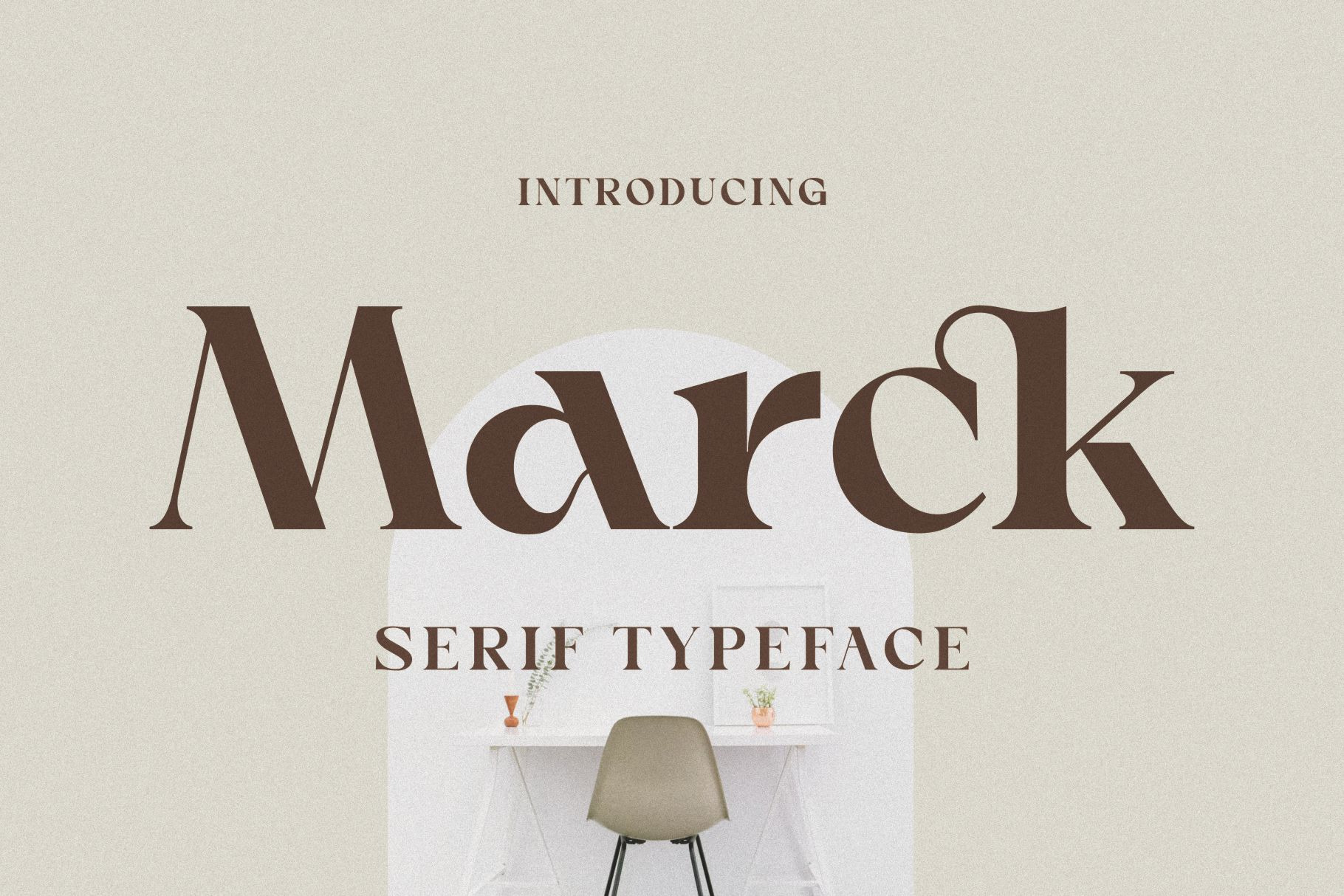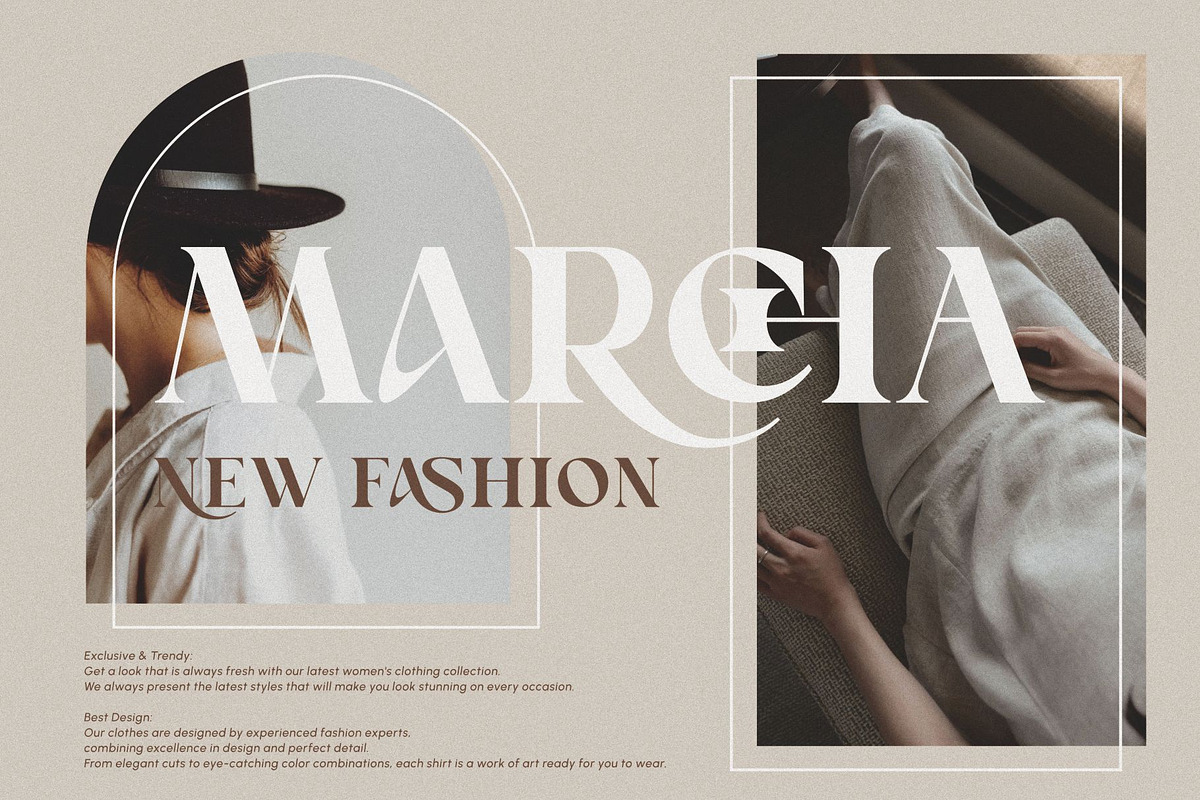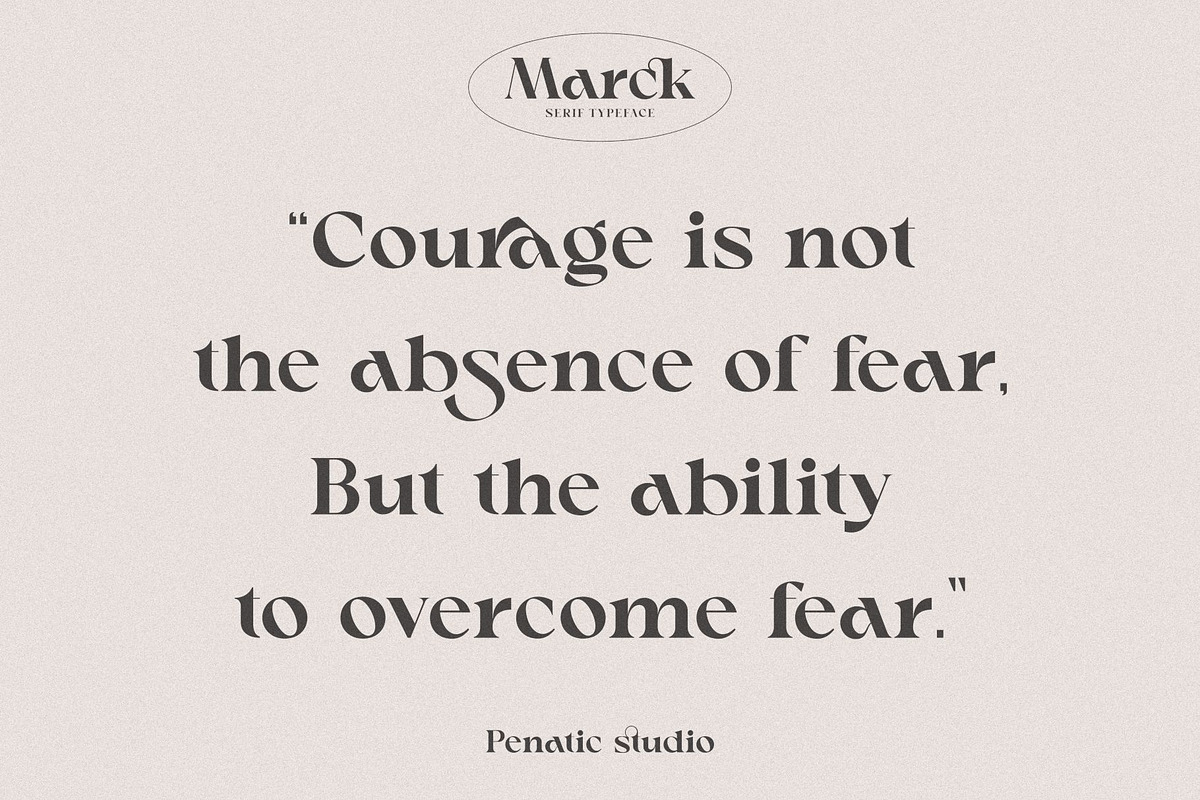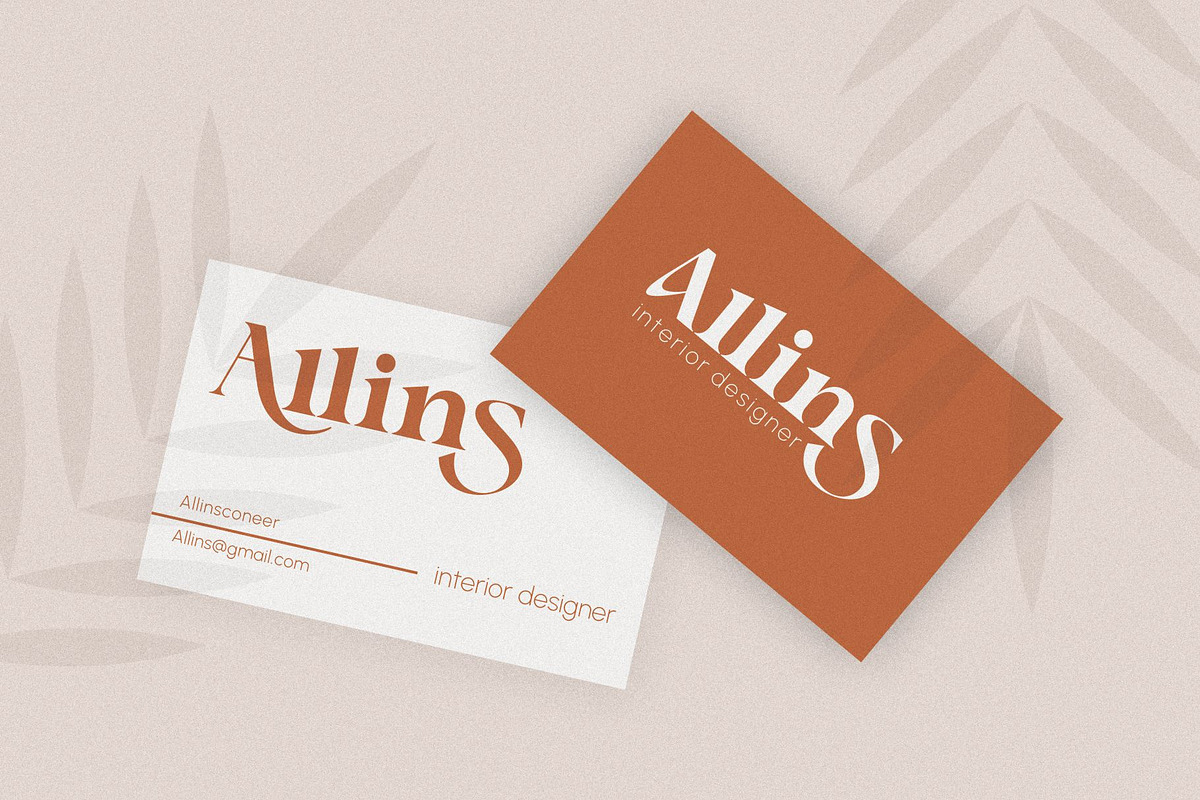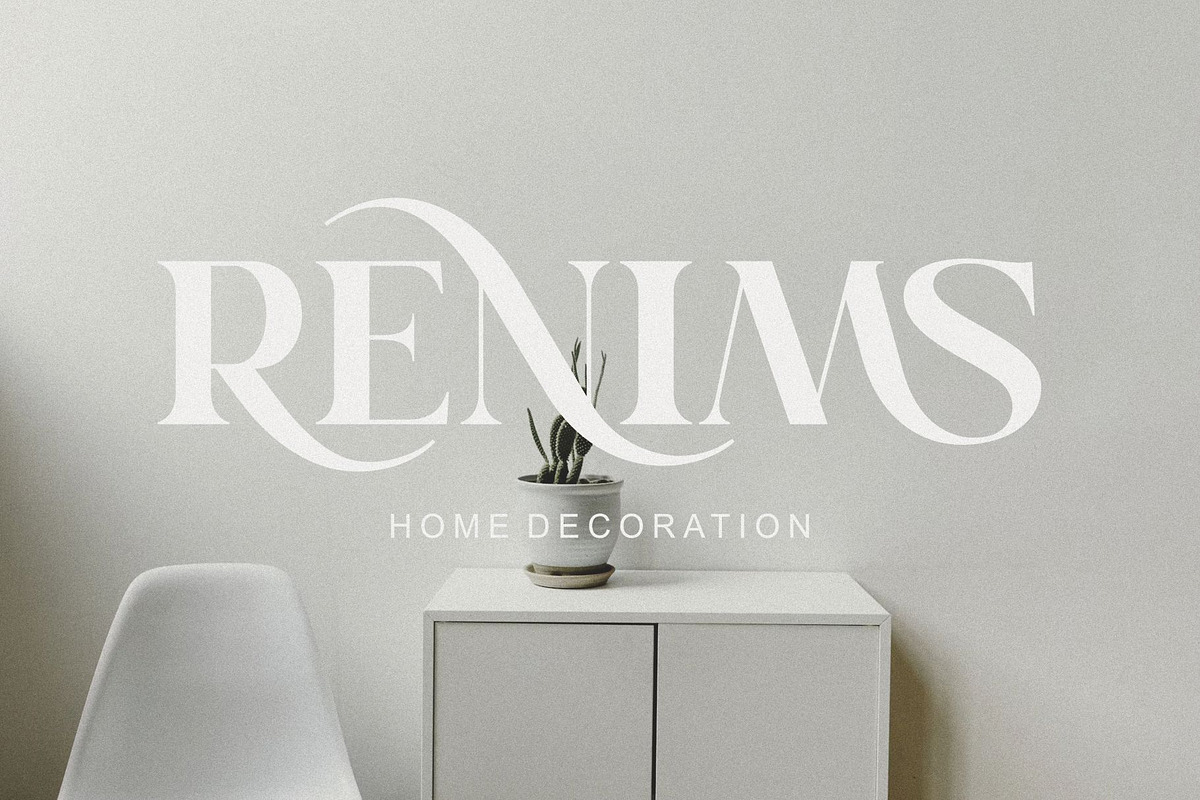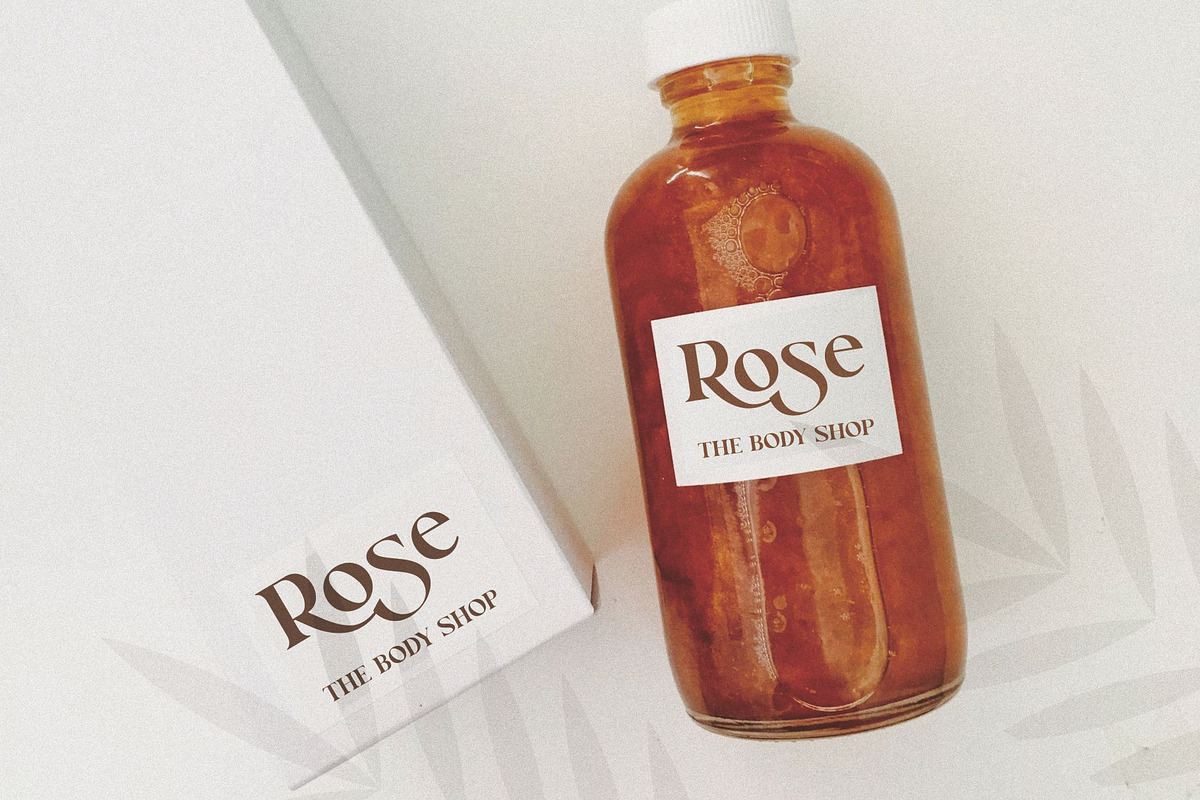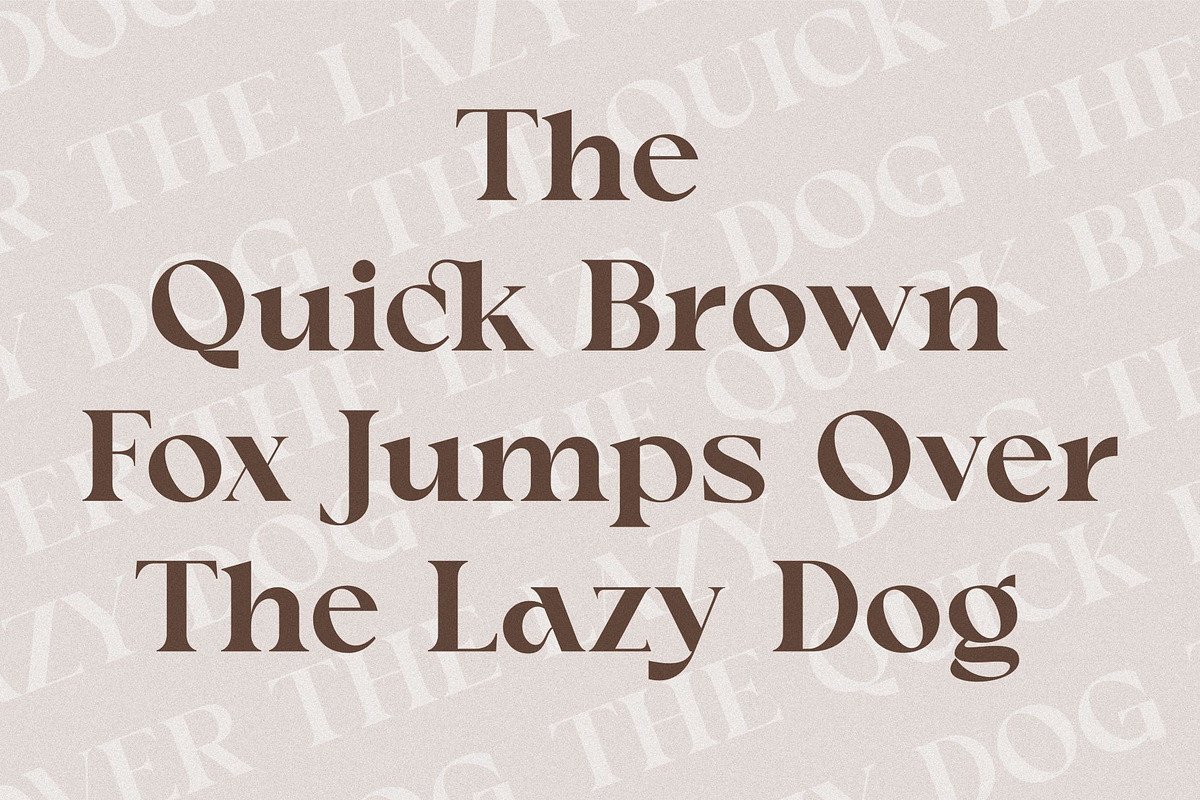
Marck _ Modern Typeface
Marck Serif Typeface is an interesting combination of classic elements and a contemporary twist in typography design. This font combines the elegant characteristics of a serif with cleaner, sharper elements, creating a harmonious and easy-to-read appearance.
Marck Serif Typeface which makes it perfect for a variety of design purposes, be it print or digital. Marck Serif Typeface is great for use in business materials, books, newspapers, and graphic design. Marck Serif Typeface provides a professional, high-quality appearance for your messages.
~ Unique Fonts Ligatures and Alternate